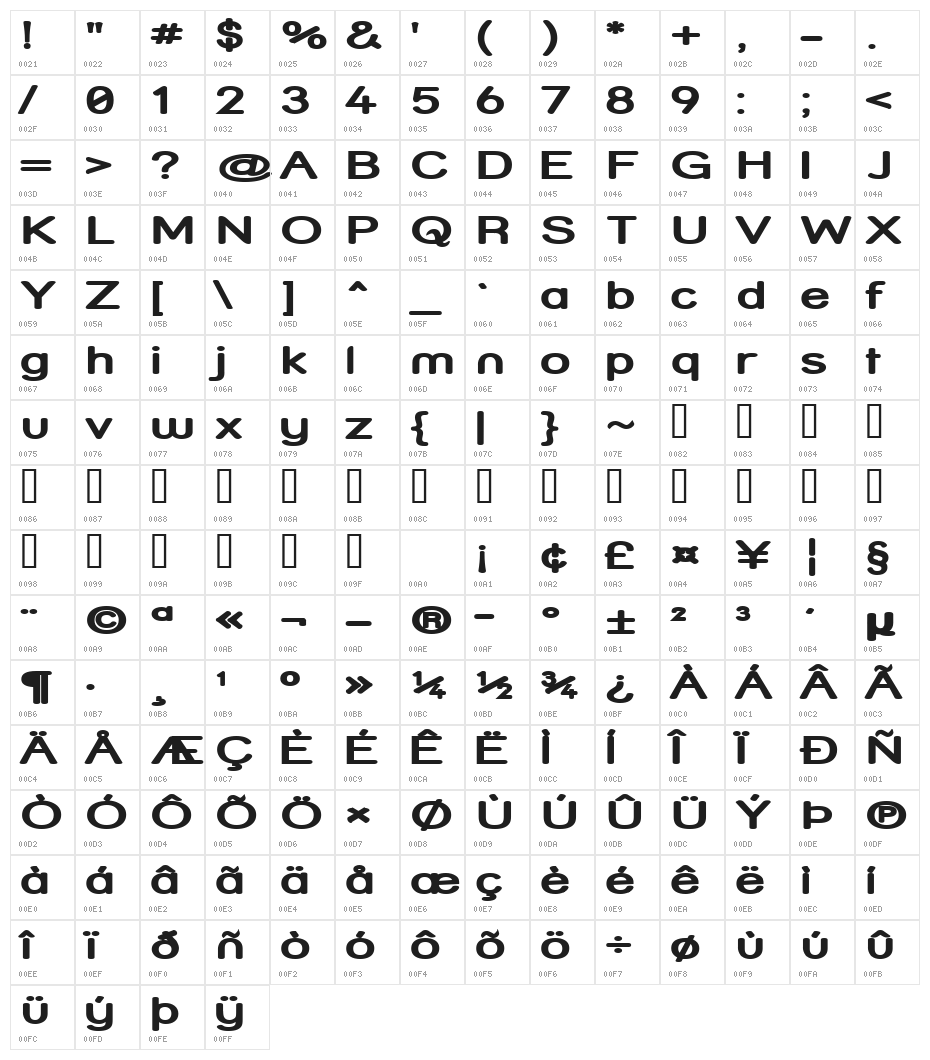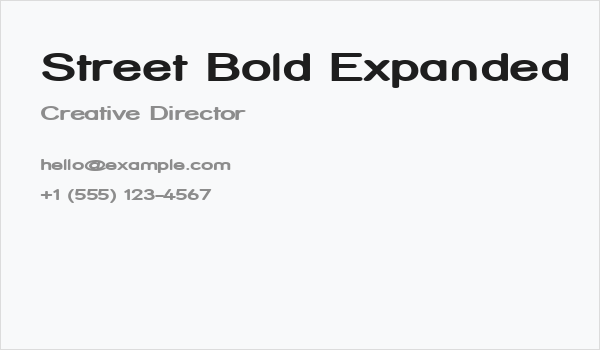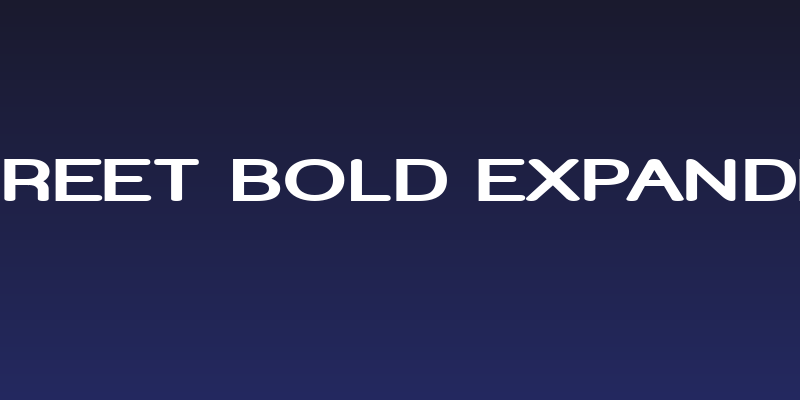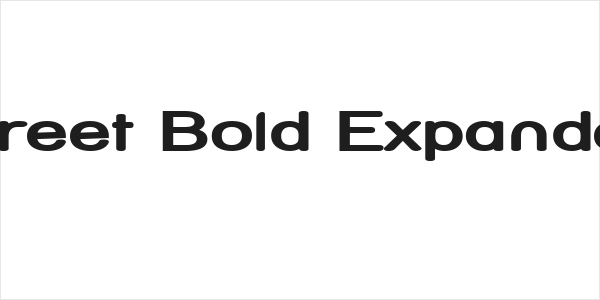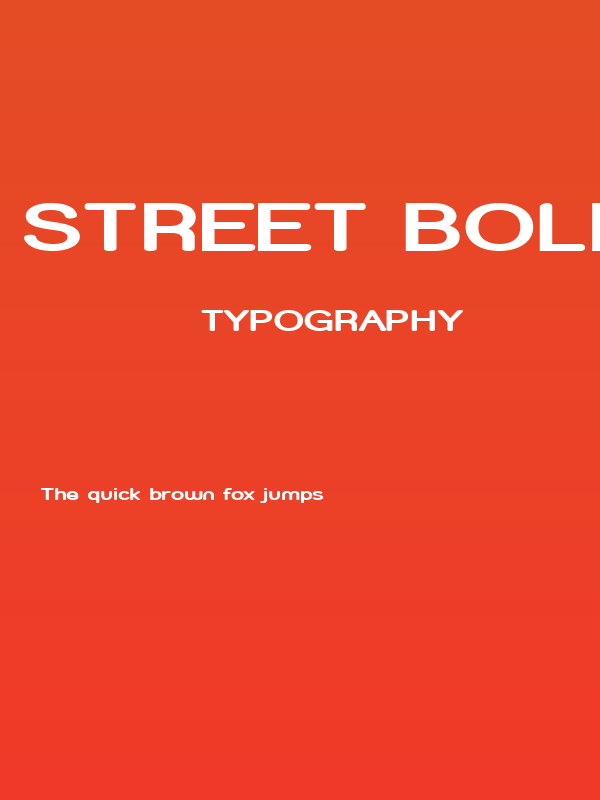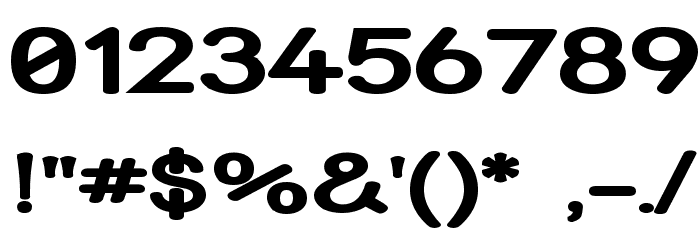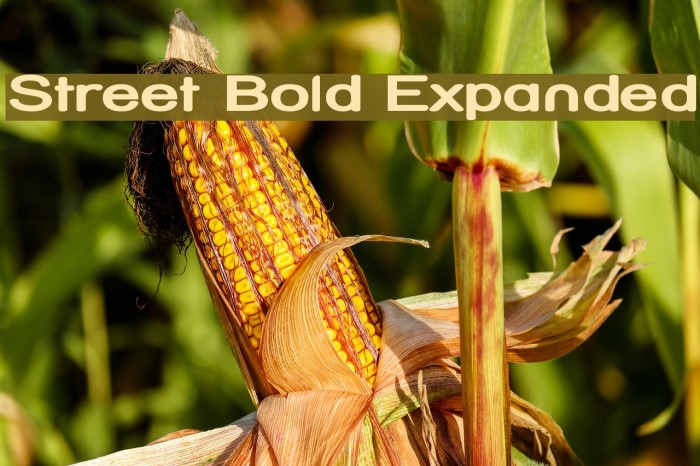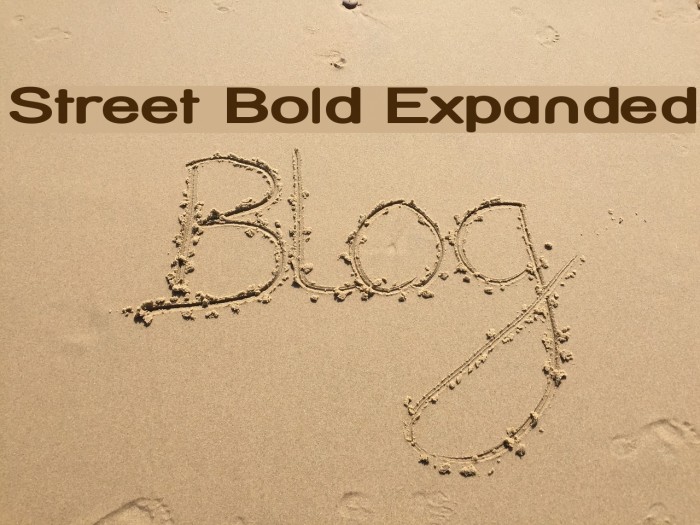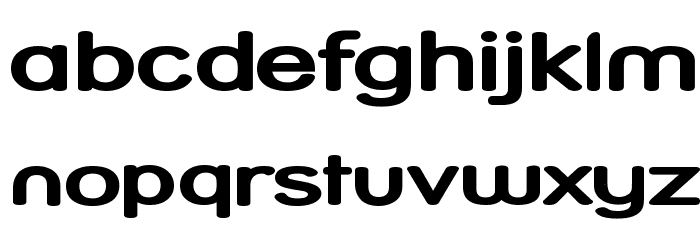
Street Bold Expanded Font
Street Bold Expanded Description
This font features a bold and expanded style, characterized by its thick strokes and wide letterforms. The design is clean and modern, with smooth curves and a uniform stroke width that provides a strong visual impact. The uppercase and lowercase letters maintain a consistent style, ensuring readability and versatility. The numerals are equally bold, matching the overall aesthetic of the alphabet. Special characters are included, maintaining the same boldness and clarity. This font is suitable for projects that require a strong and assertive typeface, making it ideal for headlines, posters, and branding materials.
| Proposed Projects | Ideal for headlines, posters, branding, and any project needing a bold statement. |